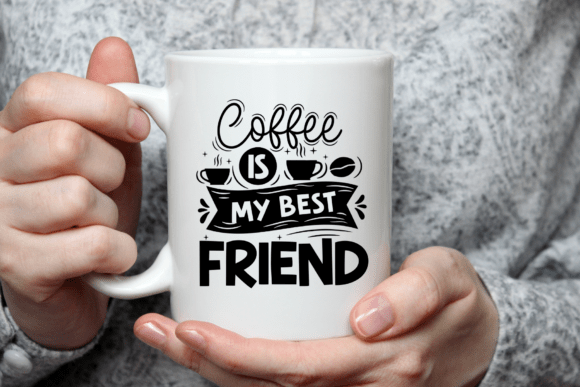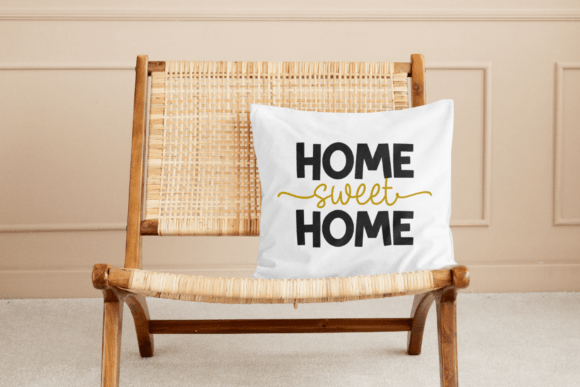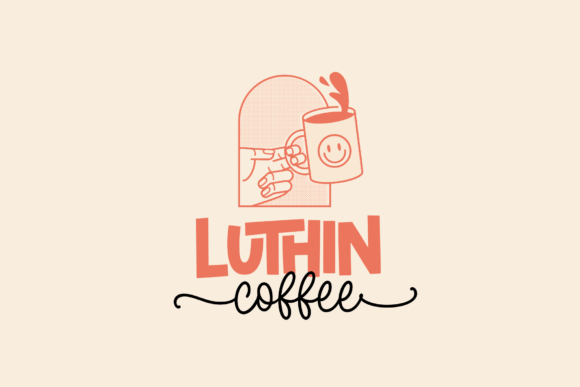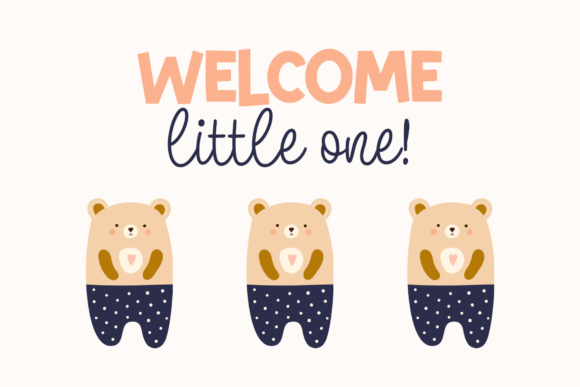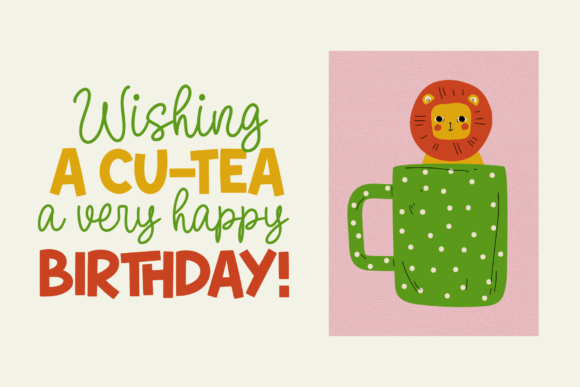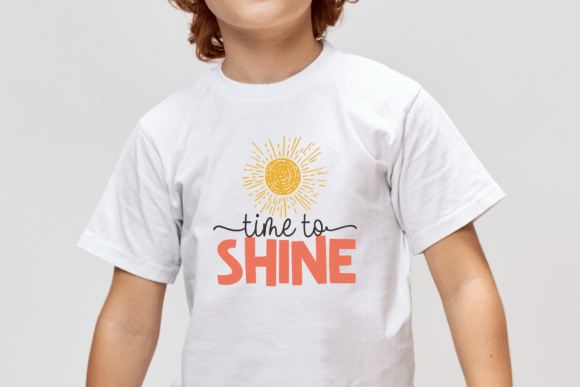
Introducing Cutie Slime Duo Font: The Ultimate Combination of Fun and Readability
Are you tired of using the same old fonts in your creative projects? Look no further than the Cutie Slime Duo Font, a unique and playful combination of a bold display sans serif font and a smooth handwritten script. This font duo is designed to bring joy, color, and personality into your designs, making it perfect for eye-catching and cheerful visuals.
The Perfect Balance of Fun and Readability
The Cutie Slime Duo Font is all about balance. The bold display sans serif font features chunky, high-impact letterforms that are sure to grab attention, while the smooth handwritten script adds a touch of sweetness and elegance. Together, they create a perfect balance between fun and readability, making it ideal for a wide range of creative projects, from children’s party invitations to social media graphics and branding materials.
Inspiration from Slime Textures, Candy Colors, and Happy Childhood Vibes
The Cutie Slime Duo Font is inspired by the textures of slime, the brightness of candy colors, and the carefree vibes of childhood. The result is a font duo that is both playful and nostalgic, evoking memories of happy times and carefree days. Whether you’re a designer looking to create bright and engaging visuals or a crafter seeking to add a personal touch to your DIY projects, this font duo is sure to inspire.
Key Features of the Cutie Slime Duo Font
- Unique Font Combination: The Cutie Slime Duo Font features a bold display sans serif font paired with a smooth handwritten script, making it perfect for creating eye-catching and cheerful designs.
- Chunky and High-Impact Letterforms: The bold display sans serif font features chunky, high-impact letterforms that are sure to grab attention and add a touch of fun to your designs.
- Smooth and Elegant Script: The smooth handwritten script adds a touch of sweetness and elegance to your designs, making it perfect for creating balanced and readable text.
- Inspired by Slime Textures and Candy Colors: The Cutie Slime Duo Font is inspired by the textures of slime and the brightness of candy colors, making it perfect for creating bright and engaging visuals.
- Perfect for Designers and Crafters: Whether you’re a designer looking to create professional-looking graphics or a crafter seeking to add a personal touch to your DIY projects, the Cutie Slime Duo Font is the perfect choice.
Use Cases for the Cutie Slime Duo Font
The Cutie Slime Duo Font is versatile and can be used in a wide range of creative projects, including:
- Children’s Party Invitations: Create eye-catching and cheerful invitations that are sure to delight kids and parents alike.
- Social Media Graphics: Add a touch of fun and personality to your social media graphics, from Facebook posts to Instagram stories.
- Branding Materials: Use the Cutie Slime Duo Font to create bright and engaging branding materials, from logos to business cards.
- DIY Projects: Add a personal touch to your DIY projects, from handmade cards to craft tutorials.
The Cutie Slime Duo Font is a unique and playful font duo that is sure to bring joy, color, and personality into your creative projects. With its chunky, high-impact letterforms and smooth handwritten script, this font duo creates the perfect balance between fun and readability. Whether you’re a designer or a crafter, the Cutie Slime Duo Font is the perfect choice for creating bright and engaging visuals that are sure to delight.